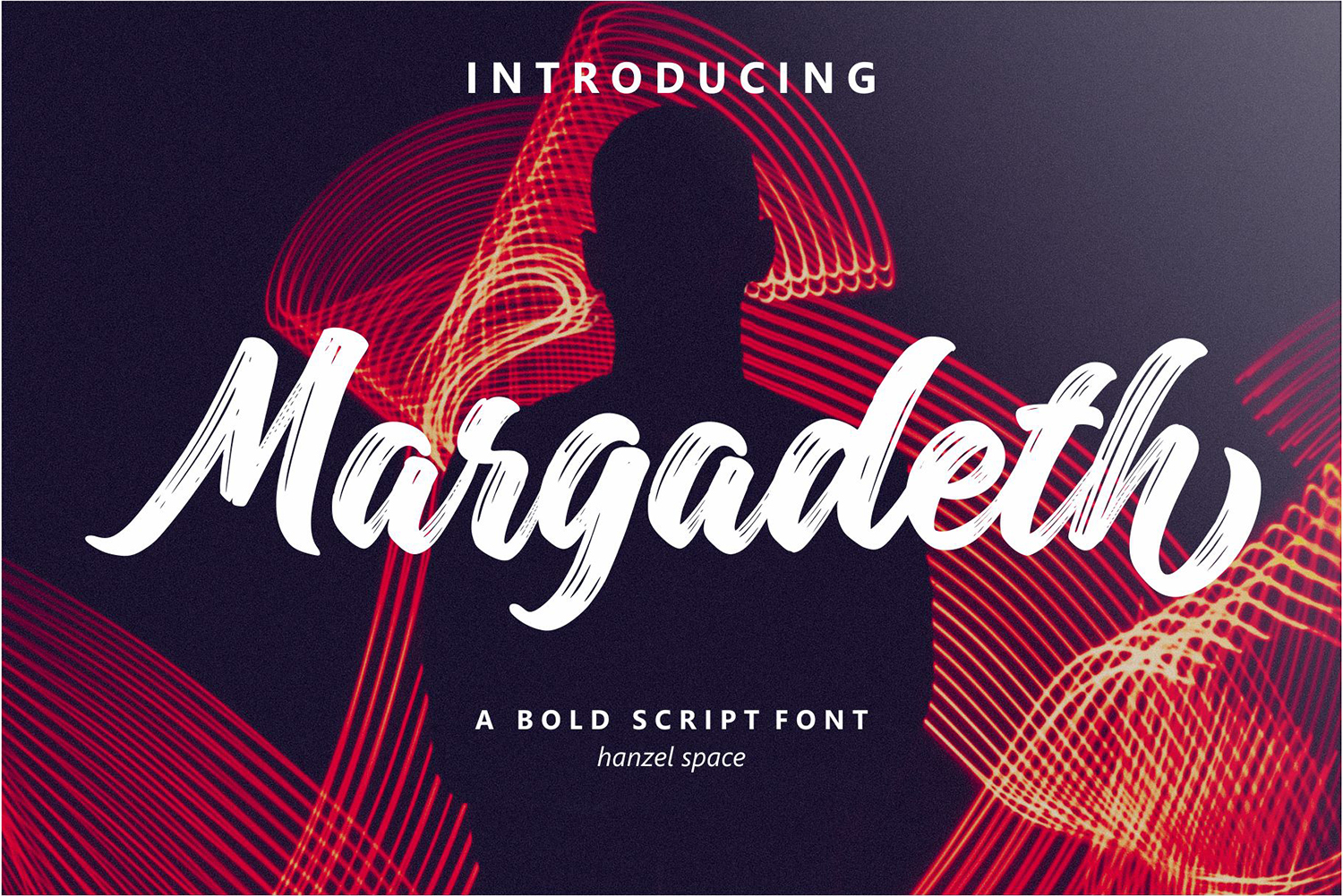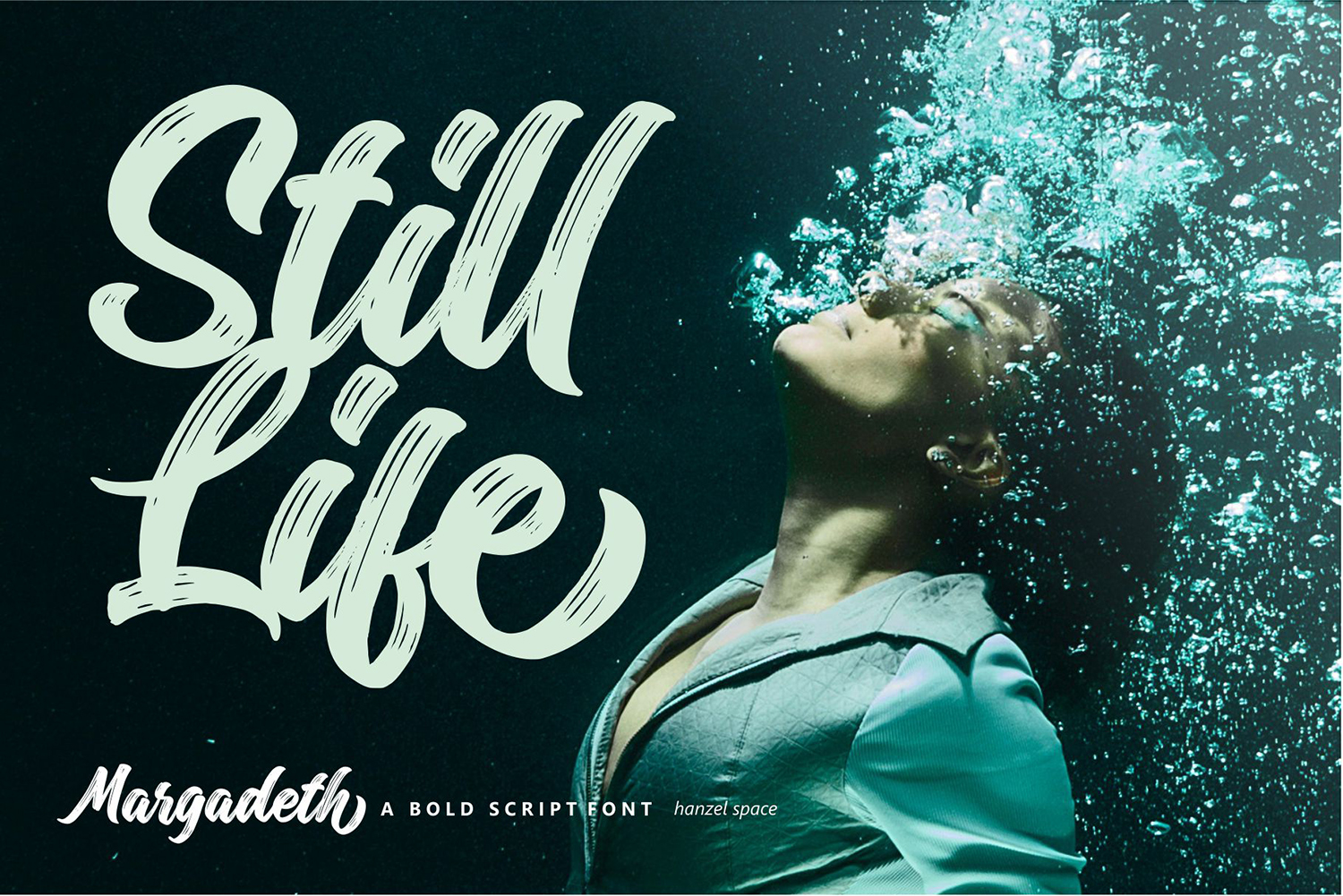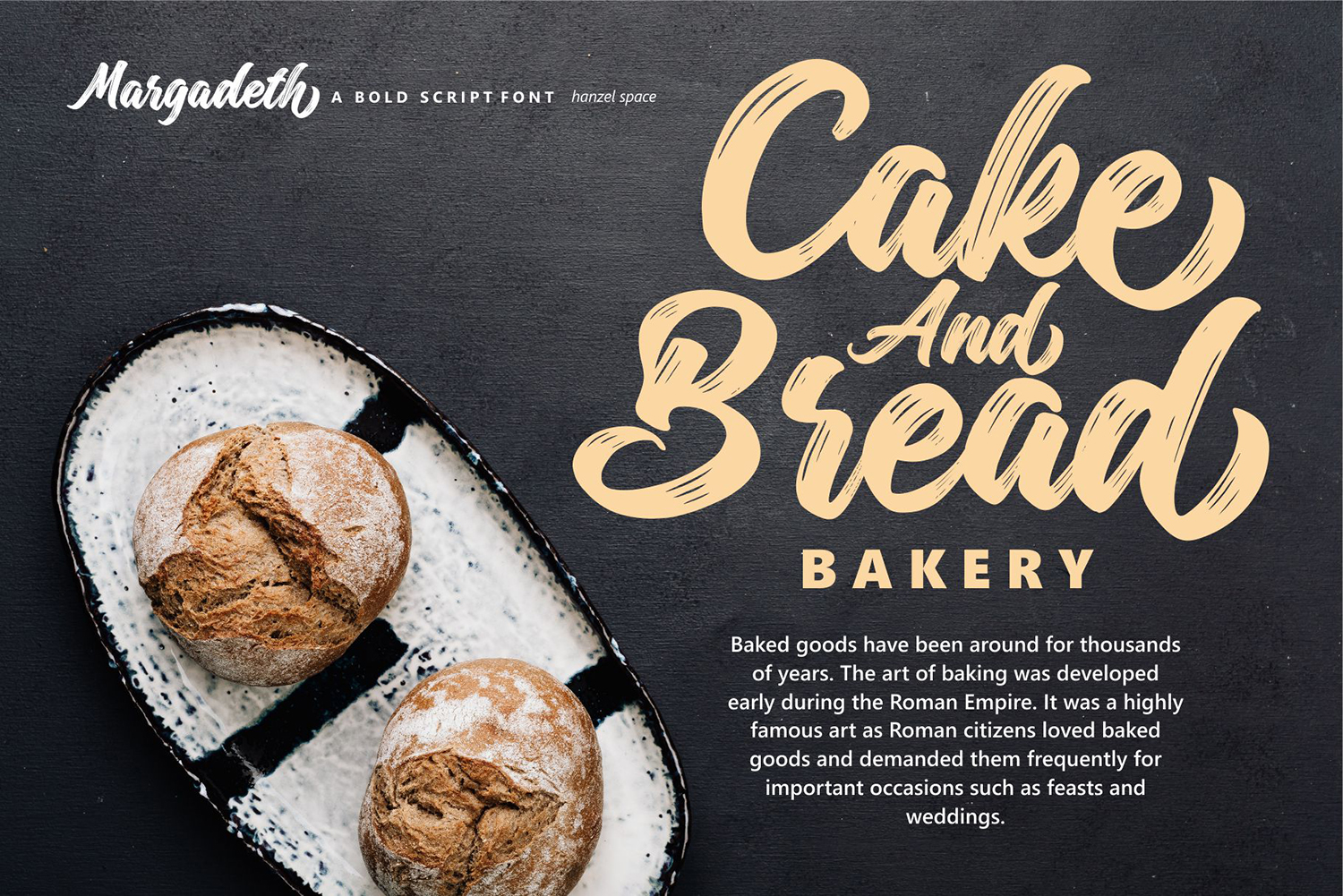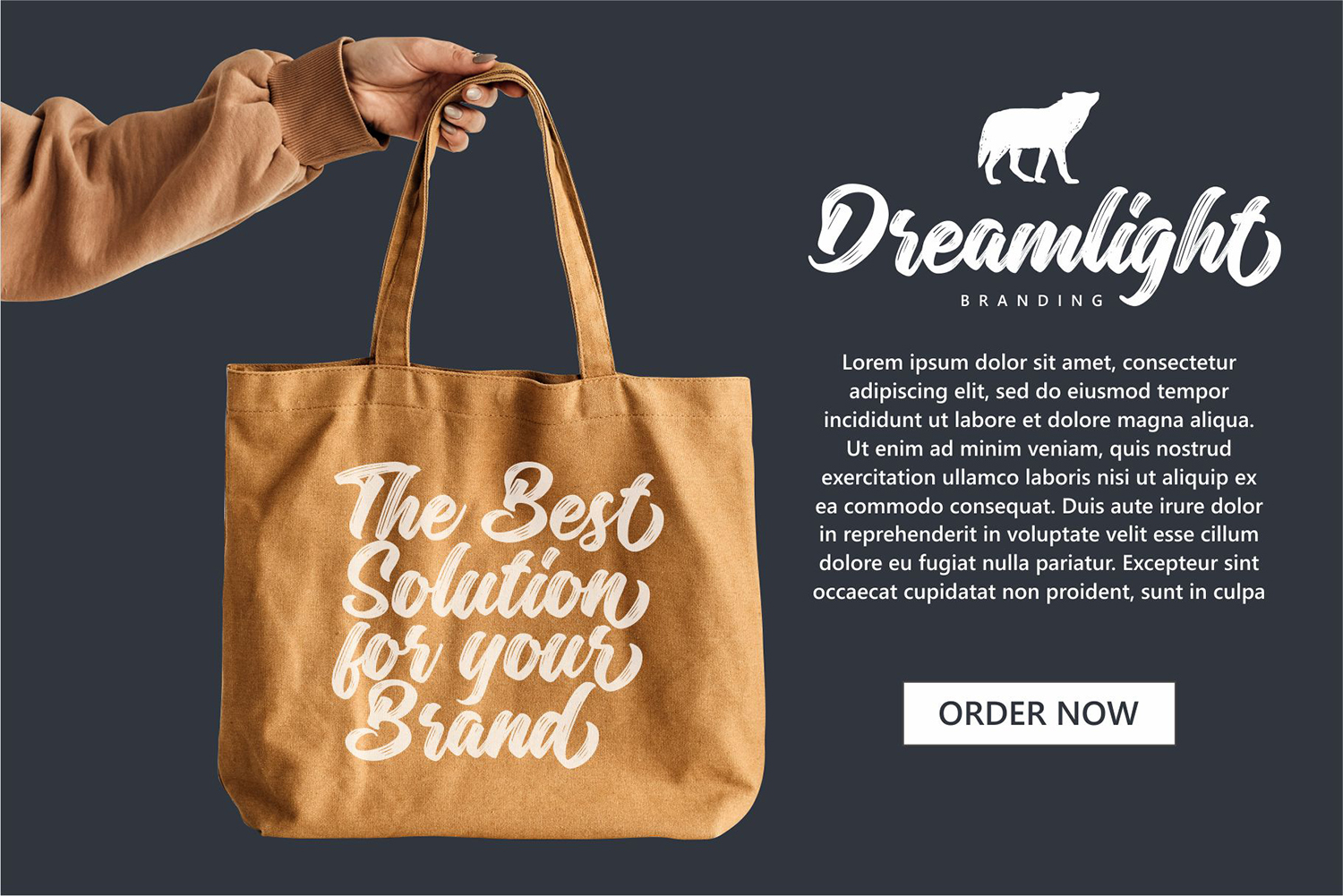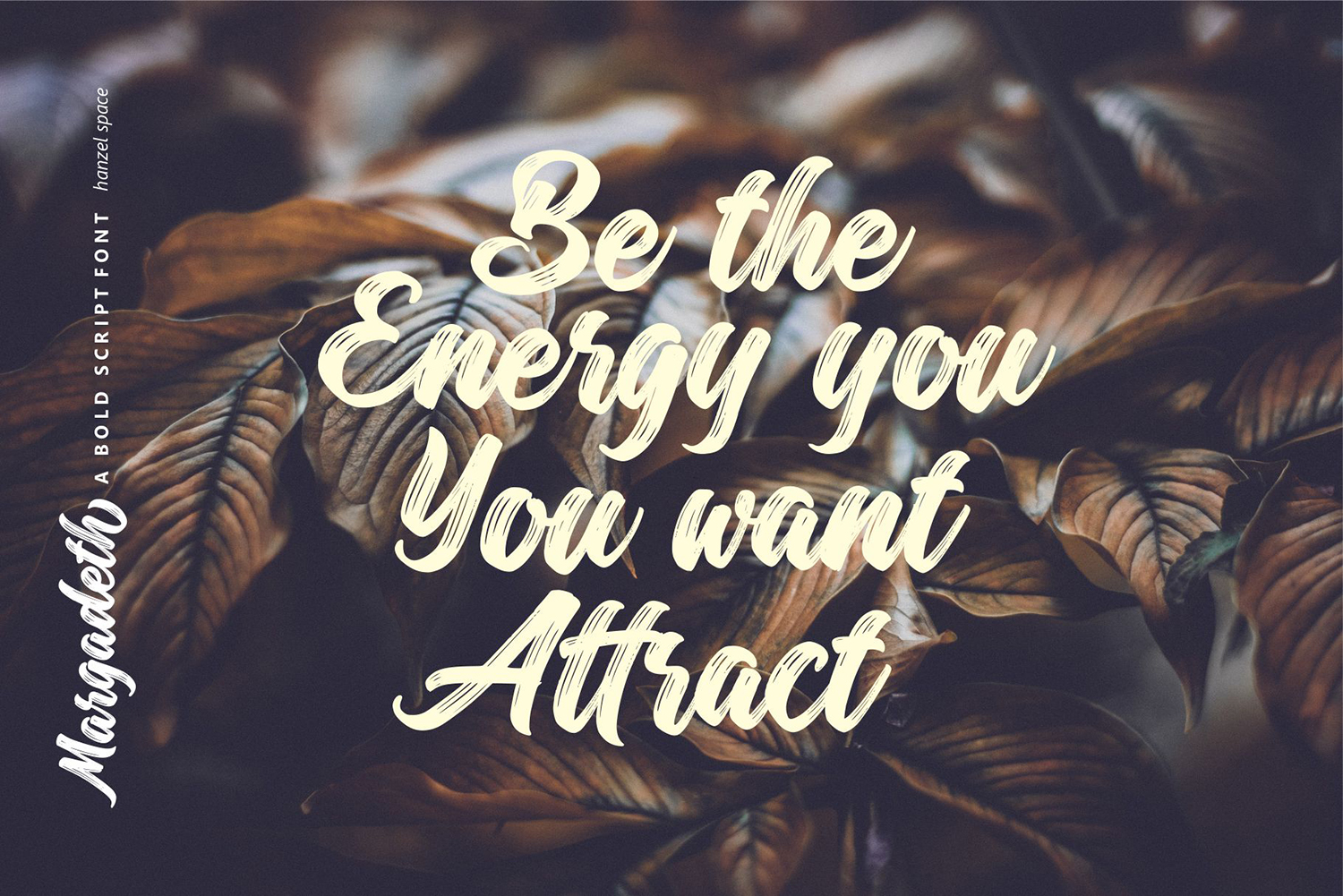
Margadeth Free Font
Margadeth Free Font is a beautiful handwritten font that simulates detailed brush writing and is very suitable for creating various design projects that require a scripted font. These can be posters, invitations, cards, branding, flyer prints, etc. If you wish to access more features and use them for commercial work please buy the full version.